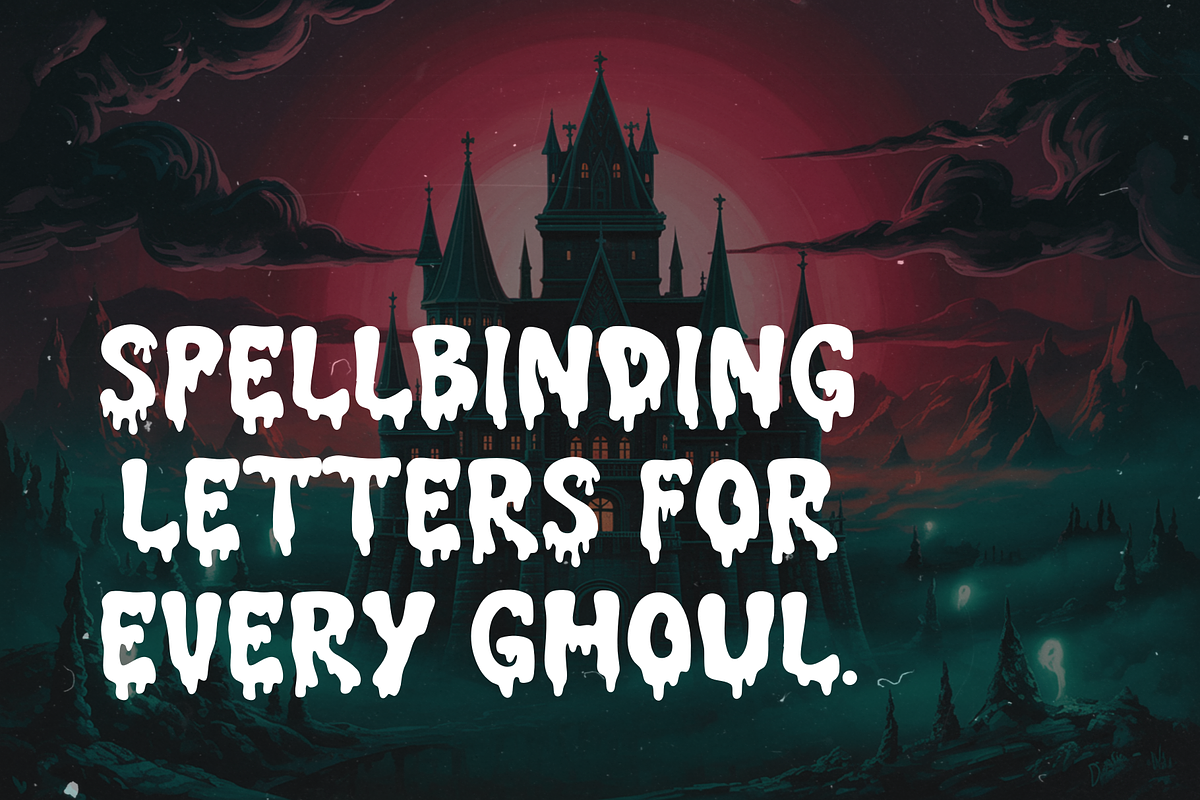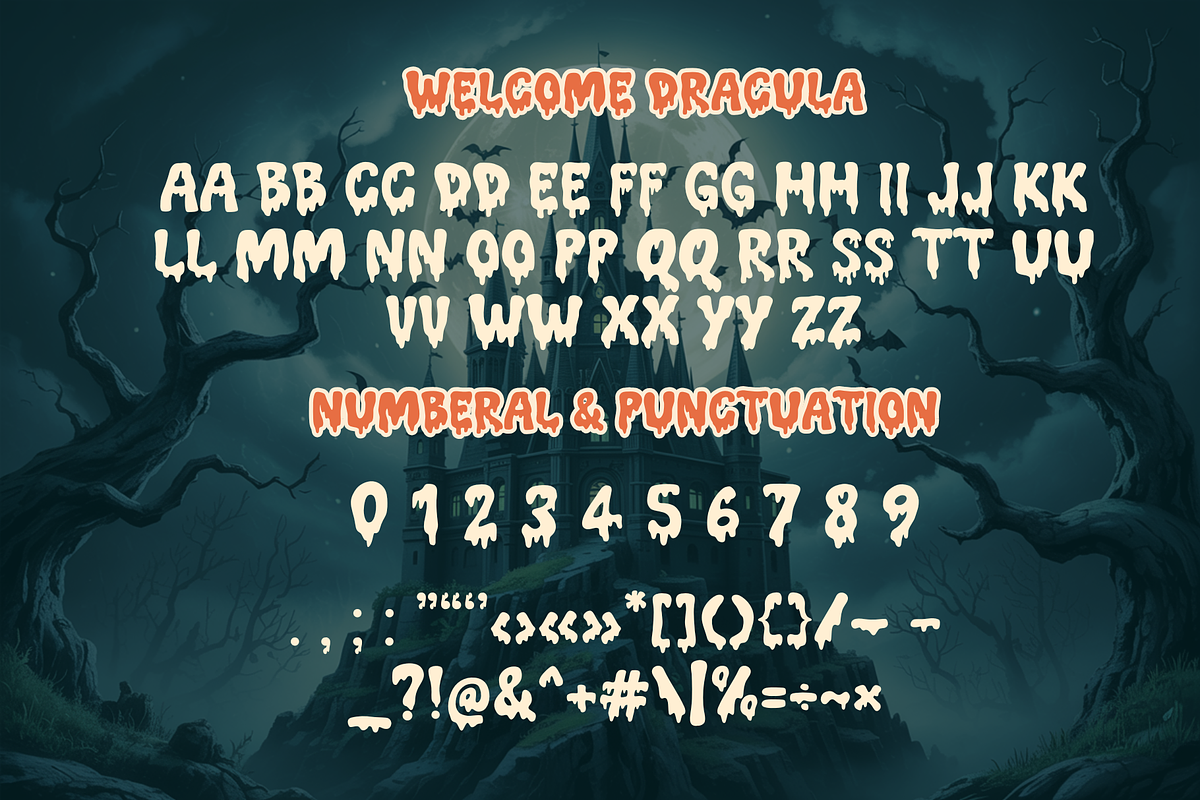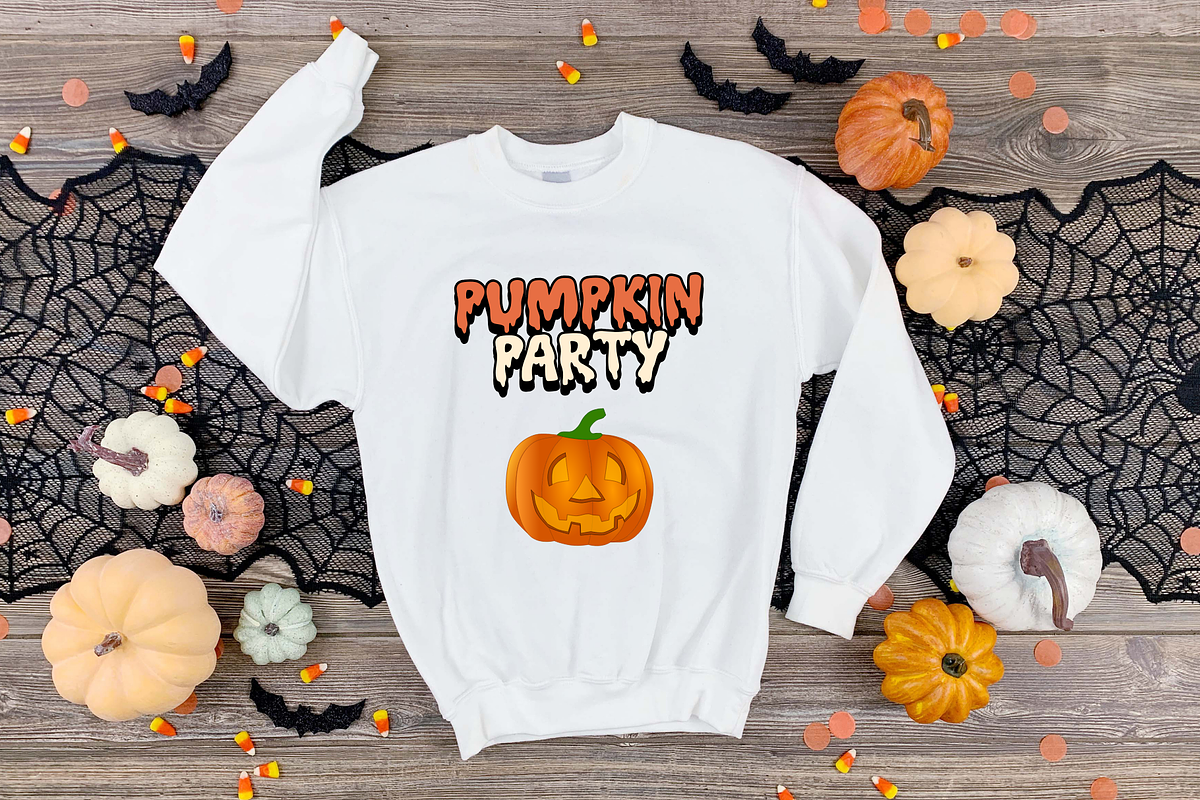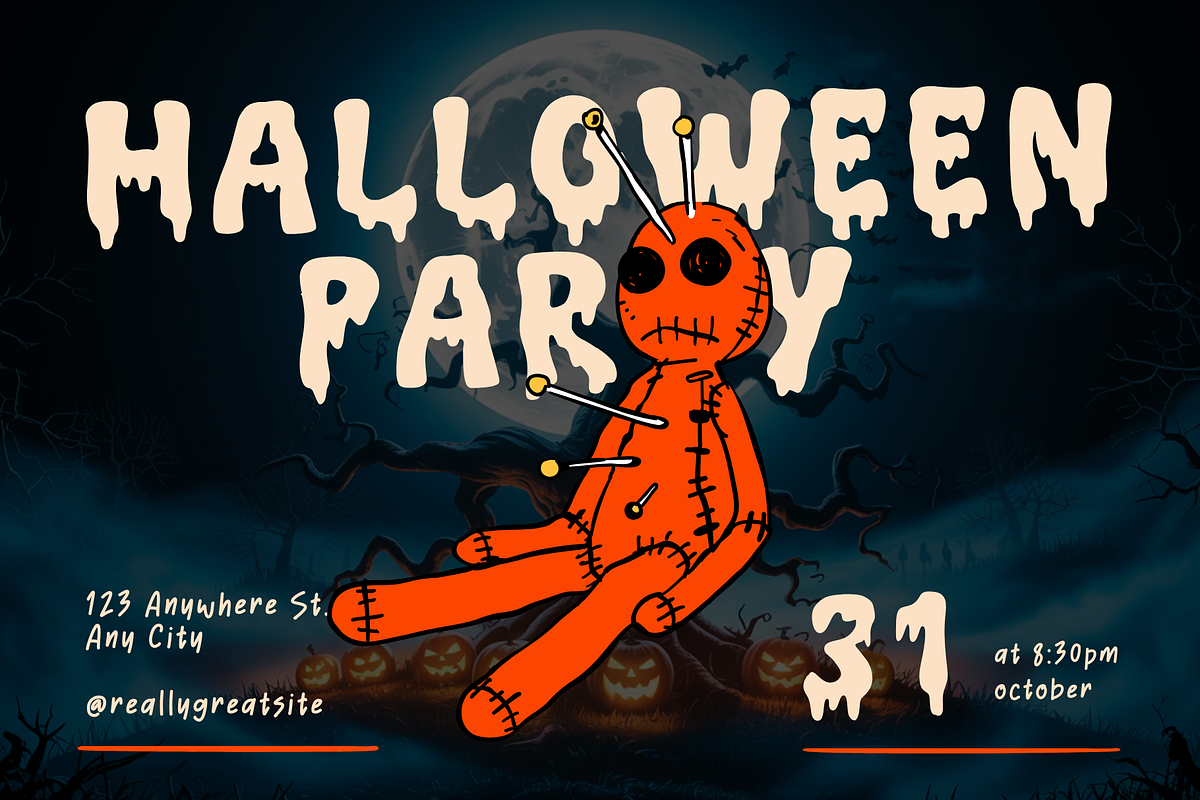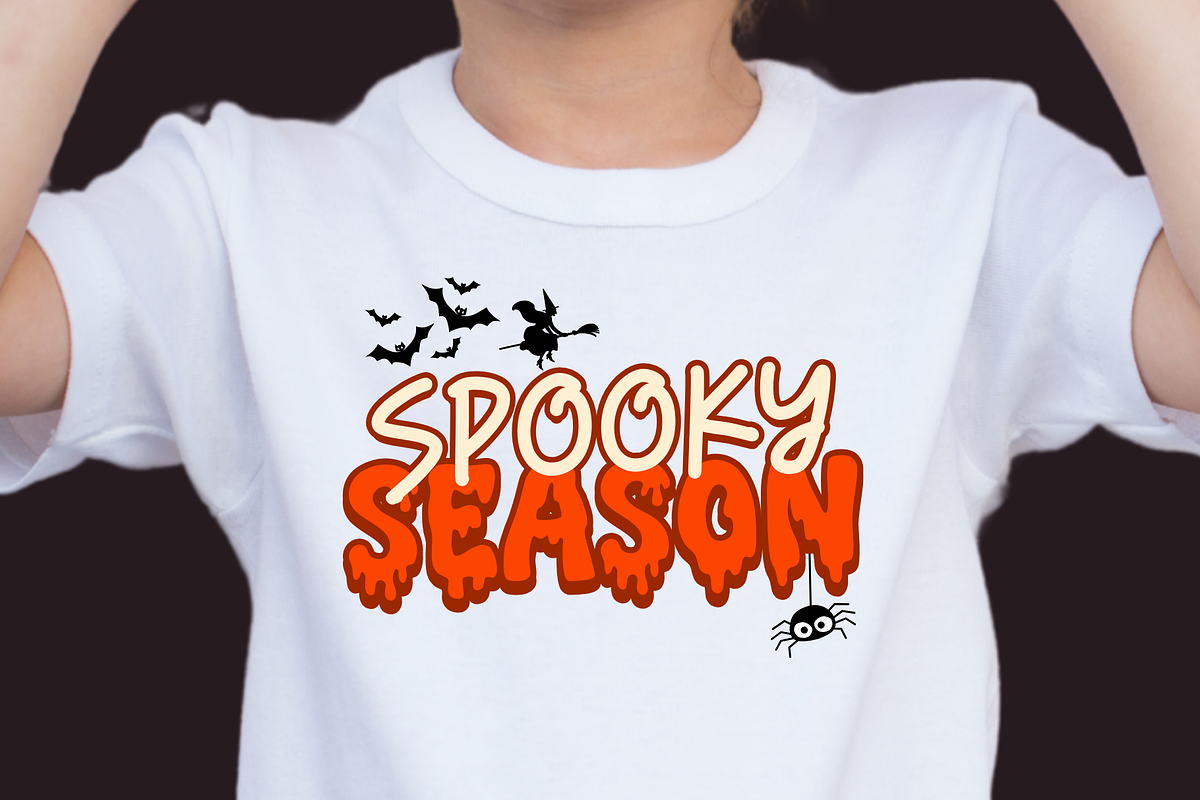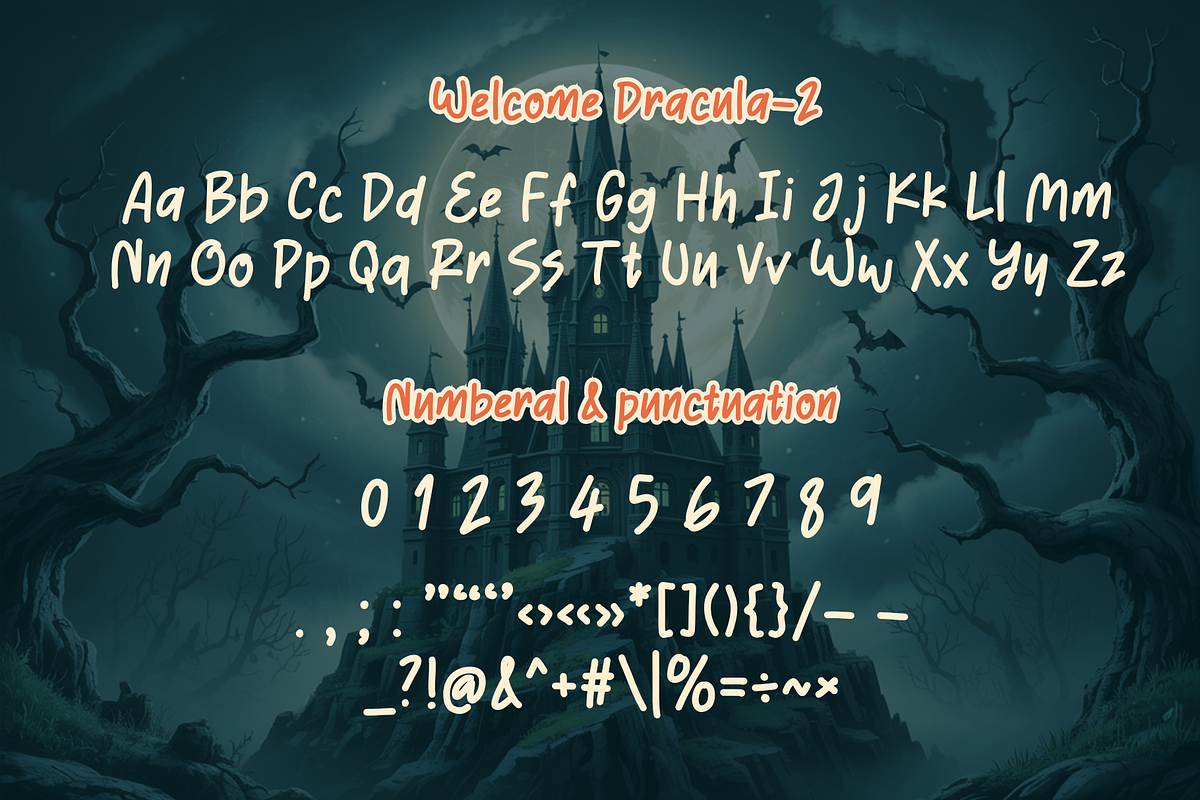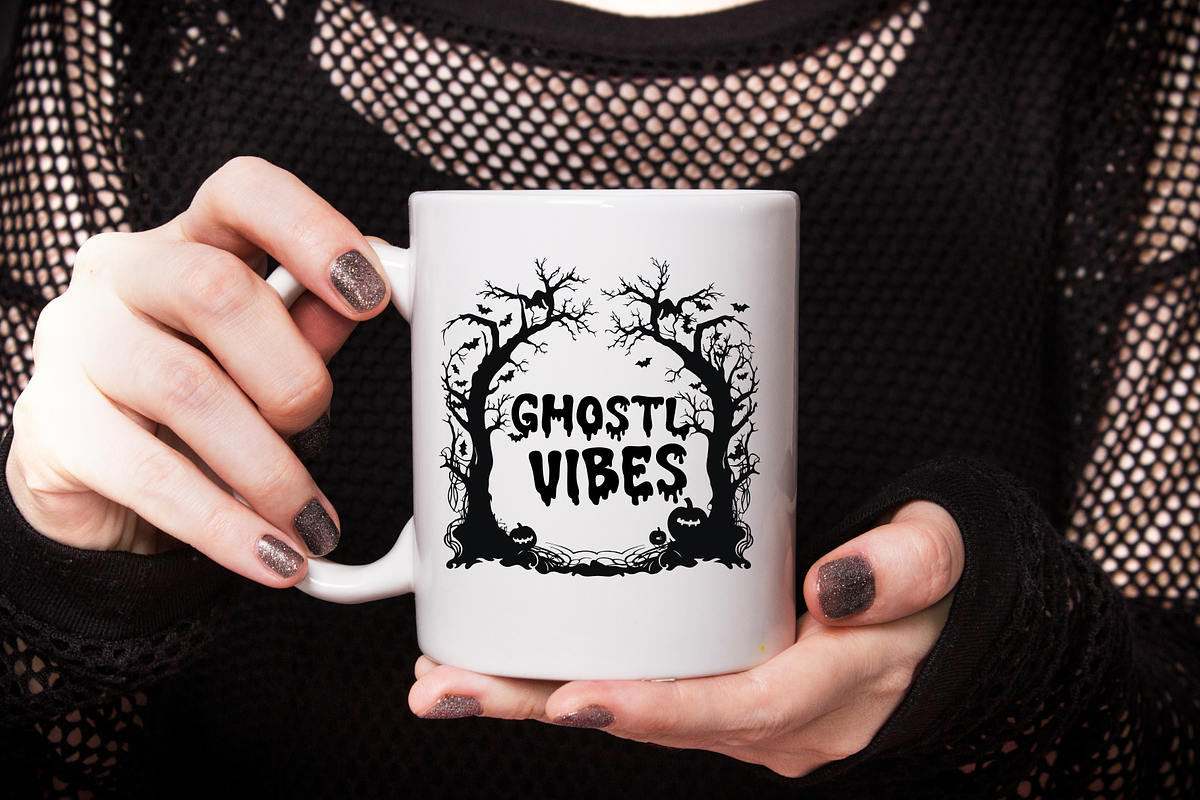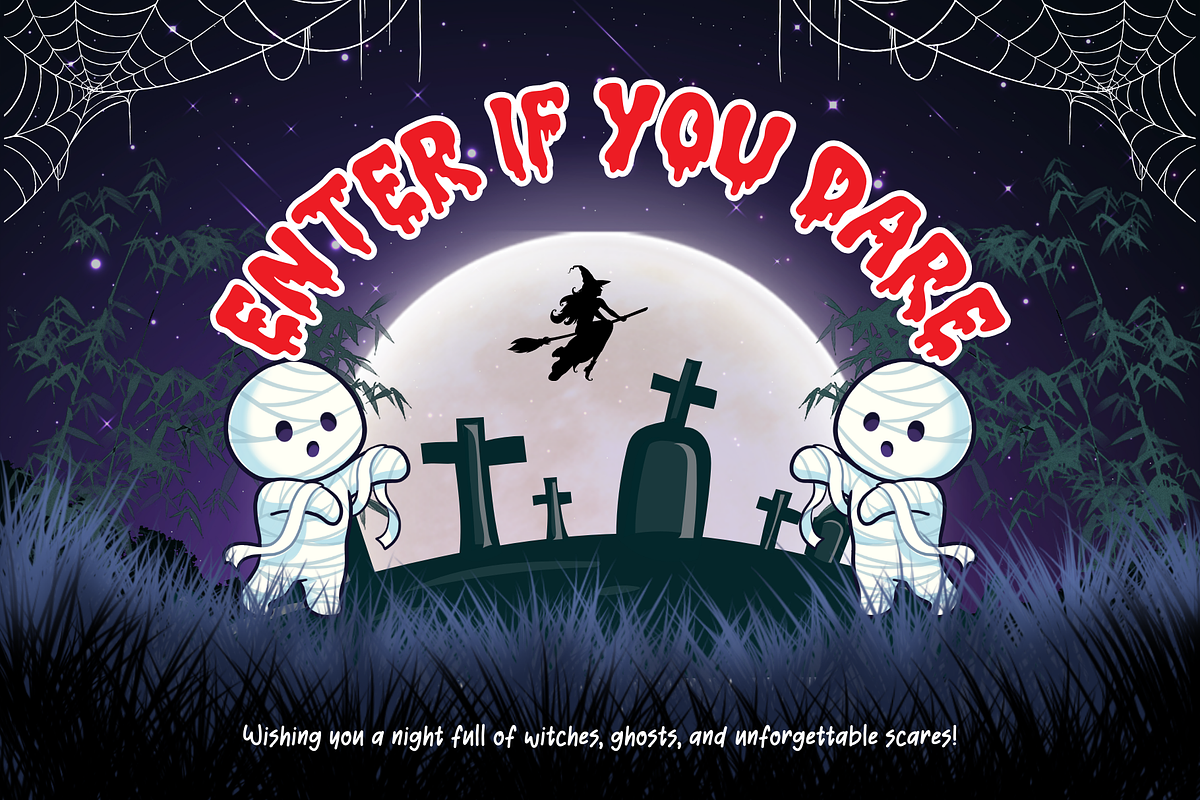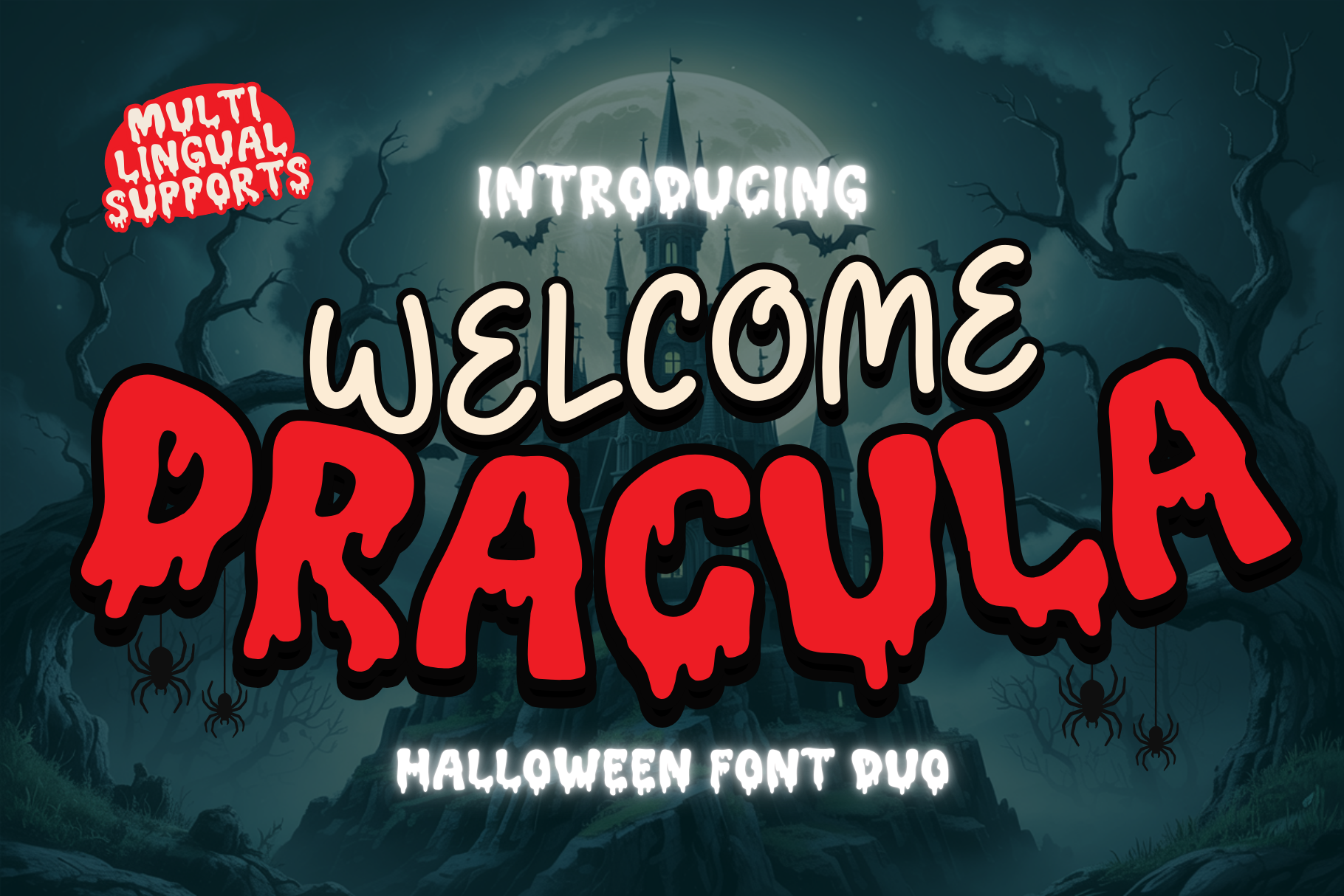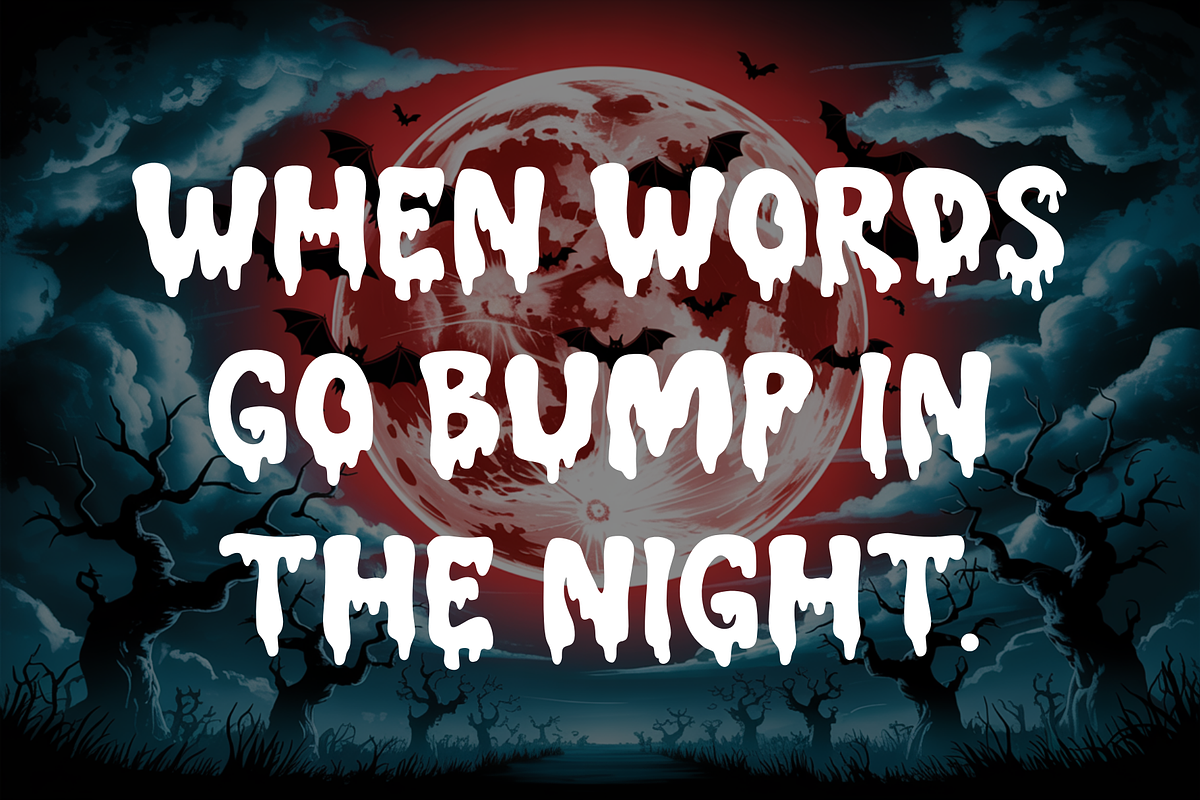
Welcome Dracula is a Halloween font
Welcome Dracula is a playful Halloween font pair featuring a chunky drip display and a handwritten script. The bold dripping style oozes spooky charm—perfect for eye-catching titles—while the casual hand-lettered script adds a friendly, witchy touch for supporting text or taglines.